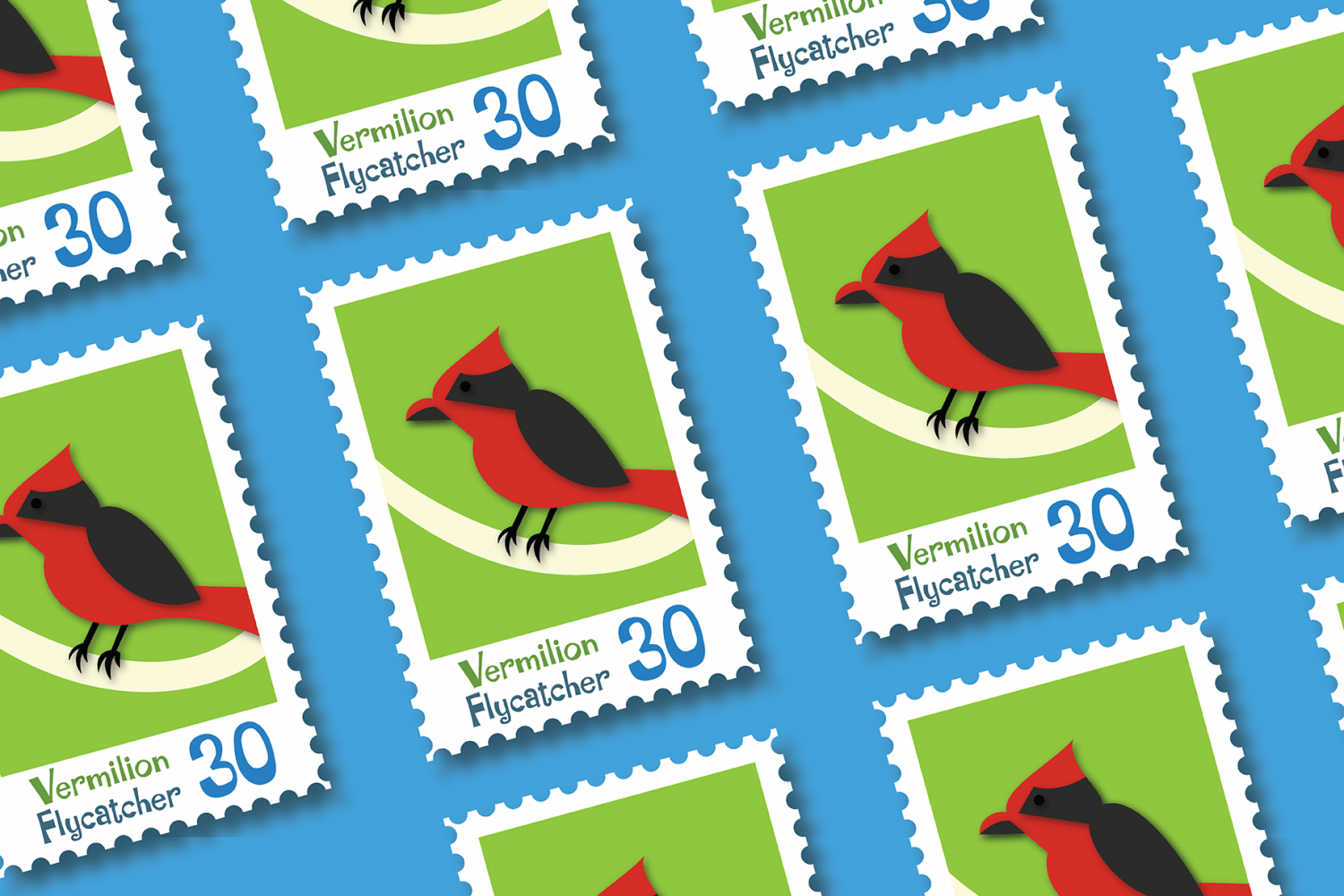
About Granny\’s Greenhouse
Granny\’s Greenhouse, a cute fun sans font with tons of alternate characters. Granny\’s Greenhouse\’s best uses for headings, logotypes, quotes, apparel design, toy packaging, invites, flyers, posters, greeting cards, product packaging, book covers, printed…